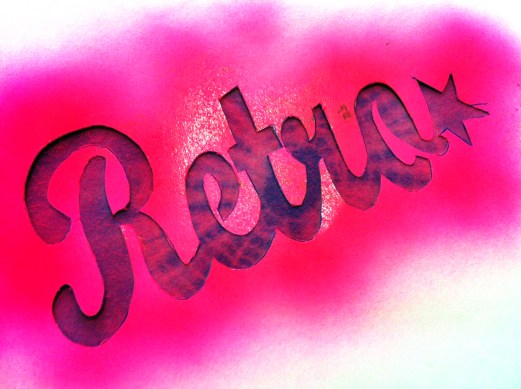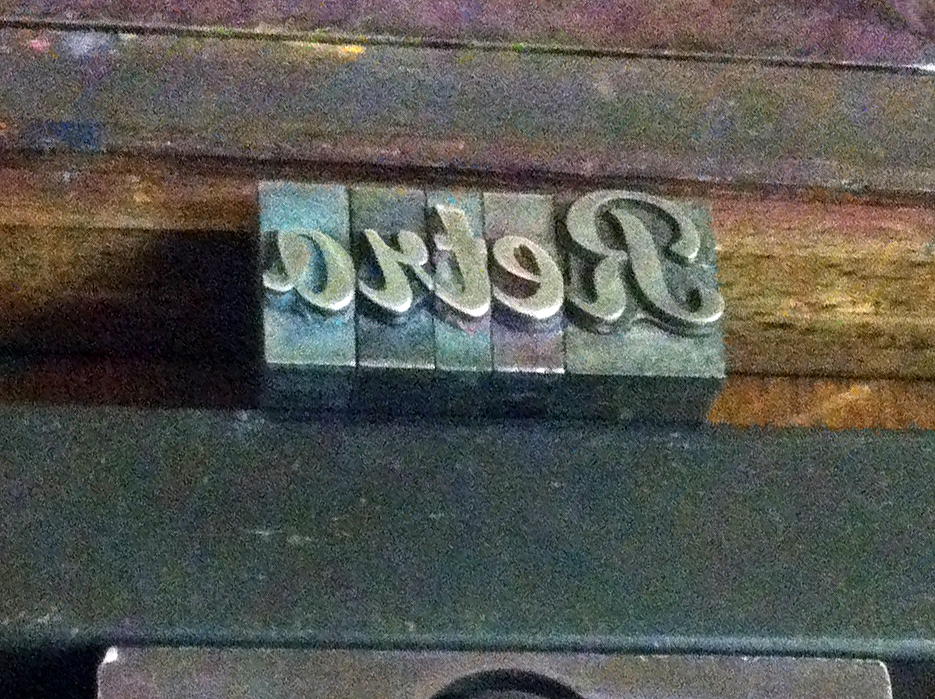
#LDF13 ‘Retro’ by Kate Clift
Clift explains that the concept behind the word is as much about the process as the aesthetic. First she letterpress printed the word on an Adana 8×5 press using type made in the 1960s. This was scanned, enlarged and cut out to create a template. Clift then spray painted the fluorescent pink onto 1960s/80s inspired tie dye fabric.
Her piece is influenced by retro from different periods, from the timelessness of letterpress printing through to the more contemporary decades of the 1960s/80s.
This is a great image, the word ‘retro’ in reverse, looking backwards, physically embodies the meaning of the word.
‘Retro’ by Kate Clift is one of the words that will be displayed at Type Tasting with the London Design Festival 2013 at the V&A.